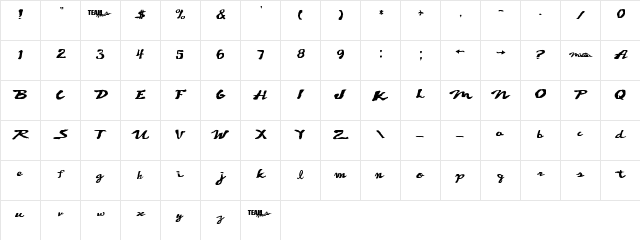
Miata Regular
Design Context for Miata Typeface
Miata is a composed and adaptable typeface that performs quietly and consistently across a wide range of design contexts.